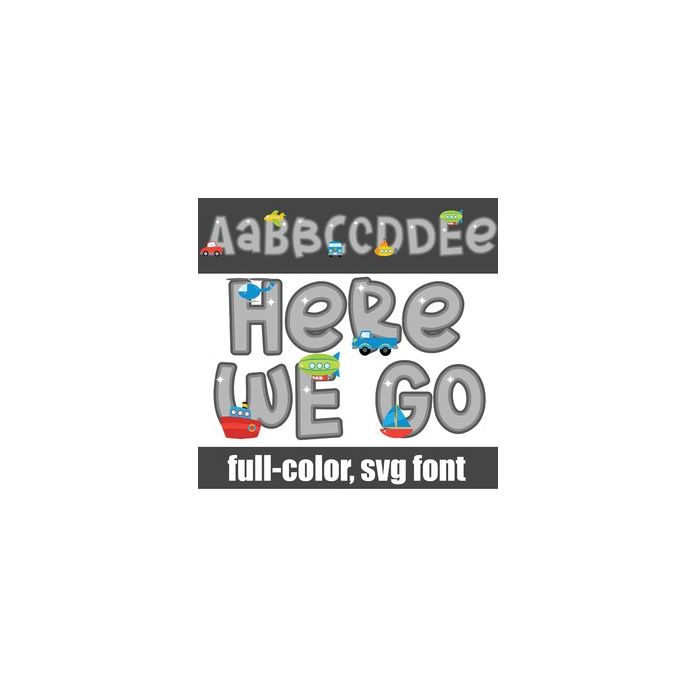
This full-color font features brightly colored lettering with tropical birds on the uppercase. There is a secondary alt case for both upper and lower that you can access through Silhouette's glyph map.